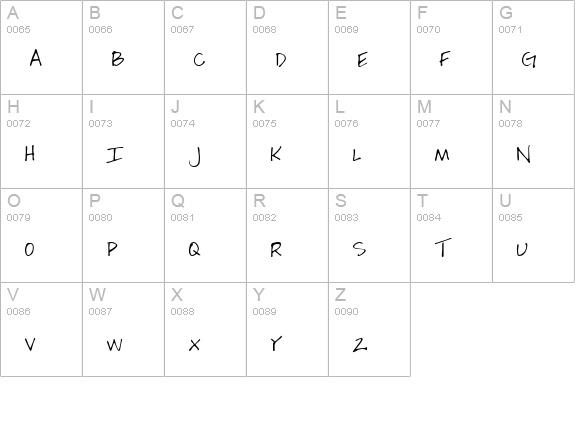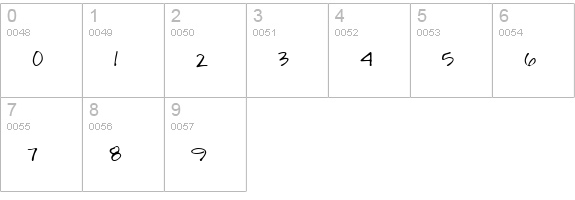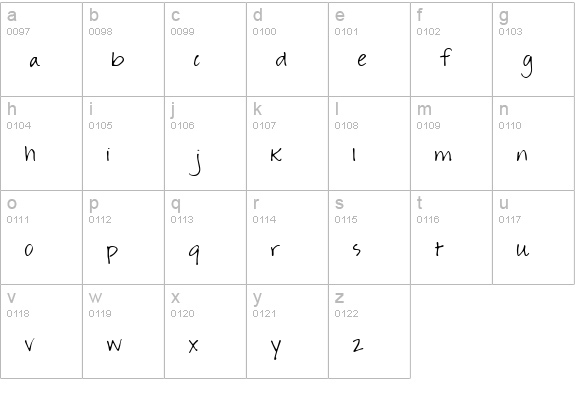
Kristin font is a versatile and elegant typeface that exudes sophistication and style. With its timeless design and classic appeal, Kristin font is perfect for a wide range of projects, from branding and advertising to invitations and signage. The clean lines and graceful curves of Kristin font make it a standout choice for any creative endeavor. Best of all, Kristin font is available for free download at FontsMarket.com. This means that you can easily access this beautiful font without any cost, making it a valuable addition to your font library. Whether you are a designer, a business owner, or a creative enthusiast, Kristin font is sure to enhance your projects and bring a touch of refinement to your work. Download Kristin font today and experience the beauty and versatility of this stunning typeface.